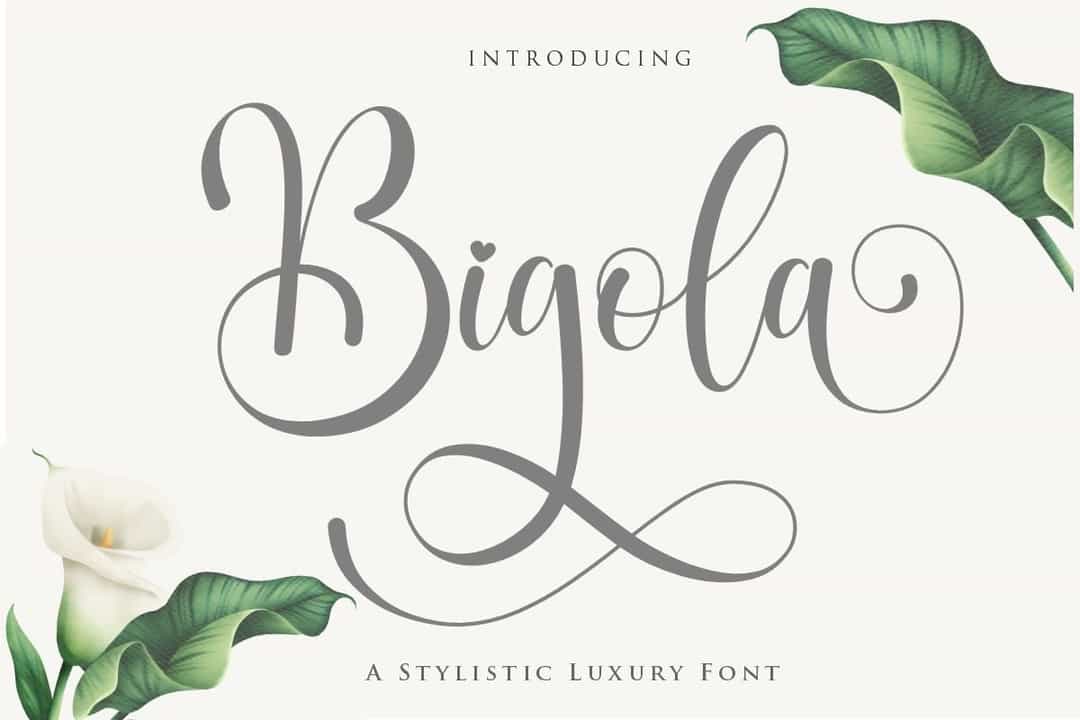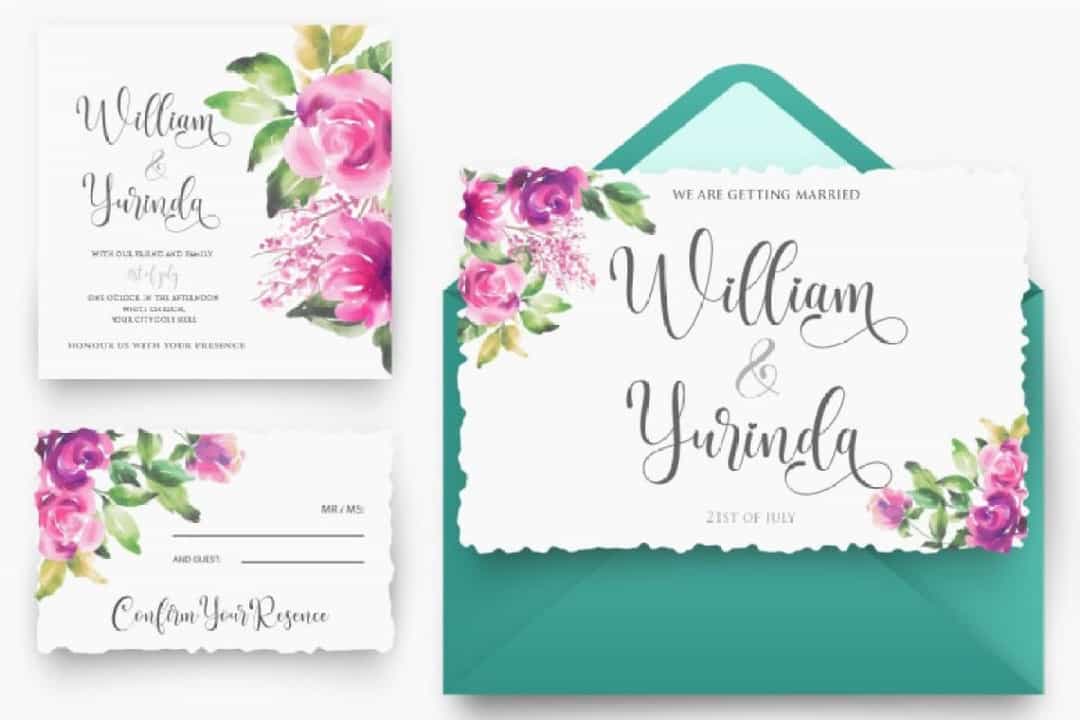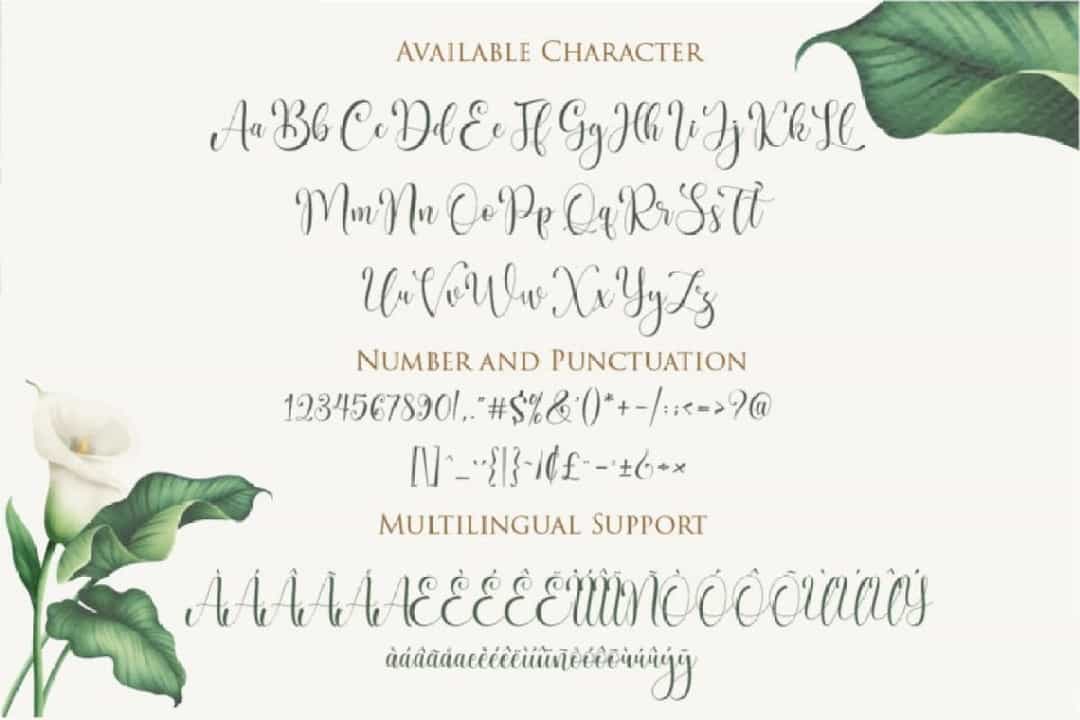
Bigola Font is elegant as well as cute at the same time. This is a beautiful script font that has been created with exquisite design and has smooth lines and beautiful fonts and some great alternates – this font is perfect for many designs including headings, wedding designs, signature labels, logos and more.